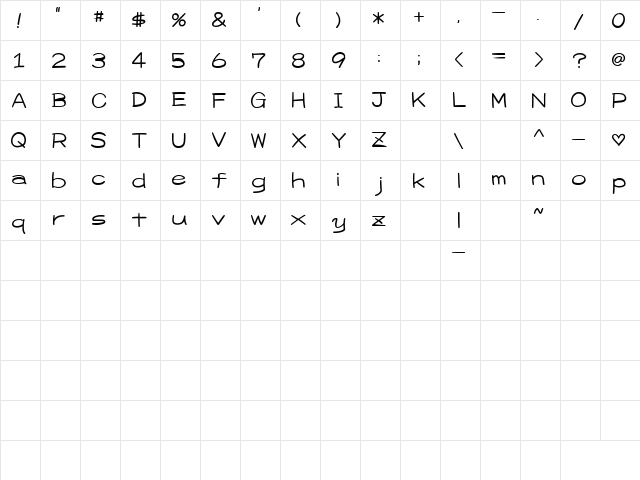
DD BRILLIANT2UAlp Regular
Design Context for DD BRILLIANT2UAlp
DD BRILLIANT2UAlp is a composed and adaptable typeface that performs quietly and consistently across a wide range of design contexts.